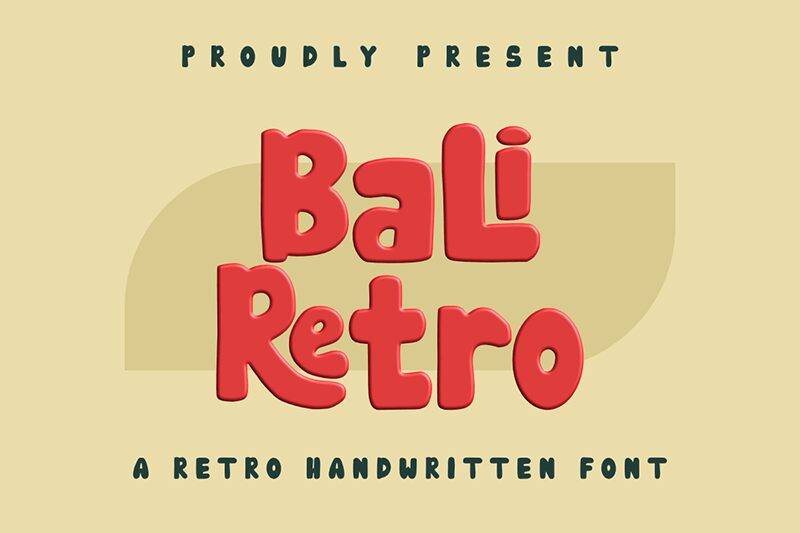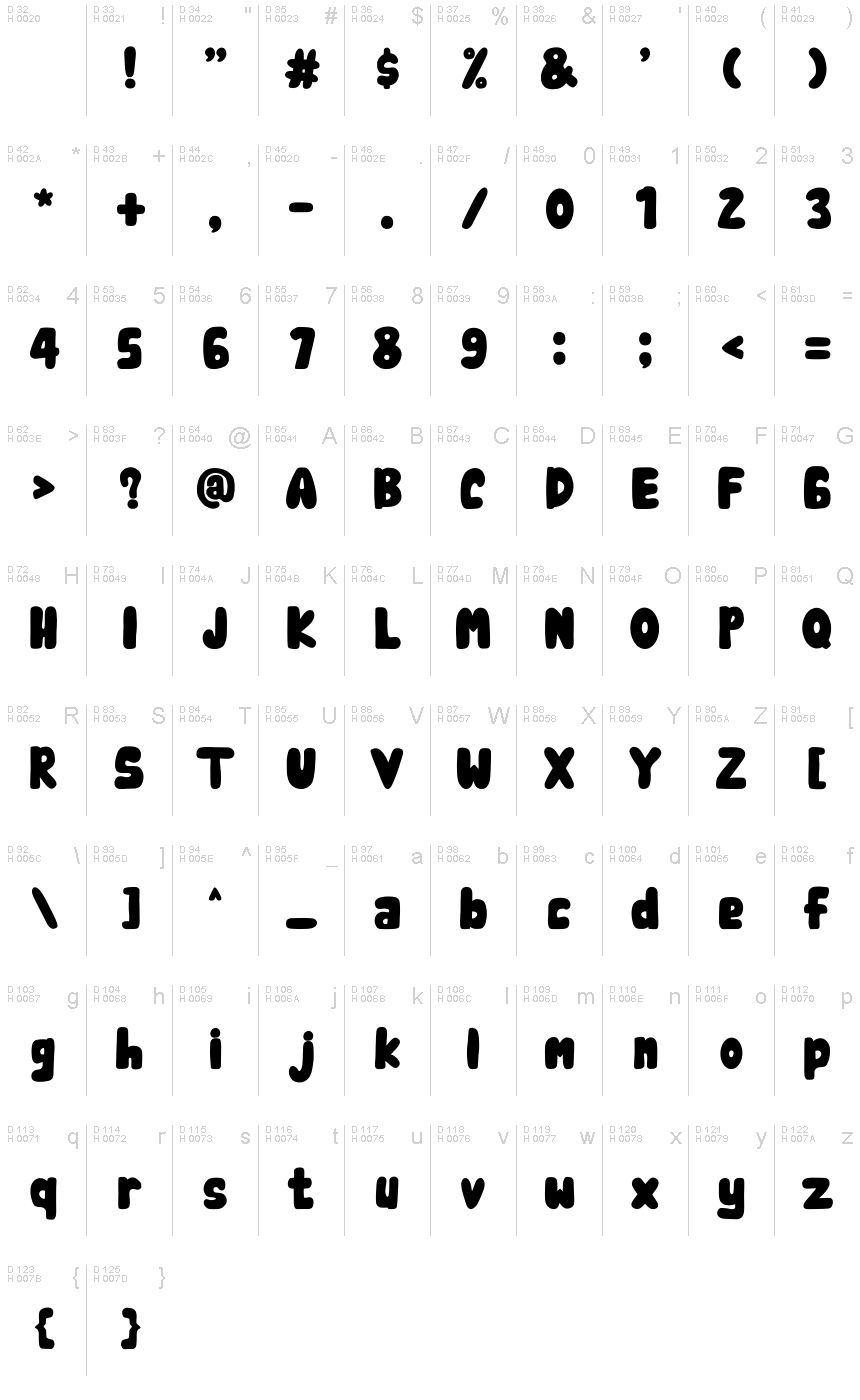
Bali Retro
Bali Retro font by Muhammad Yafinuha is a classic stylish free font from the 70s era that comes with clear letters that are distinguished with boldness. The display cartoon handwriting typeface font has zero sharp edges and it emphasizes charming, playful, and funky vibes.
Bali Retro is more suitable for use in creating brochures, signage, logos, products packaging or branding. Additionally, this typeface would be very appropriate for composing web banners or social media advertising campaigns.